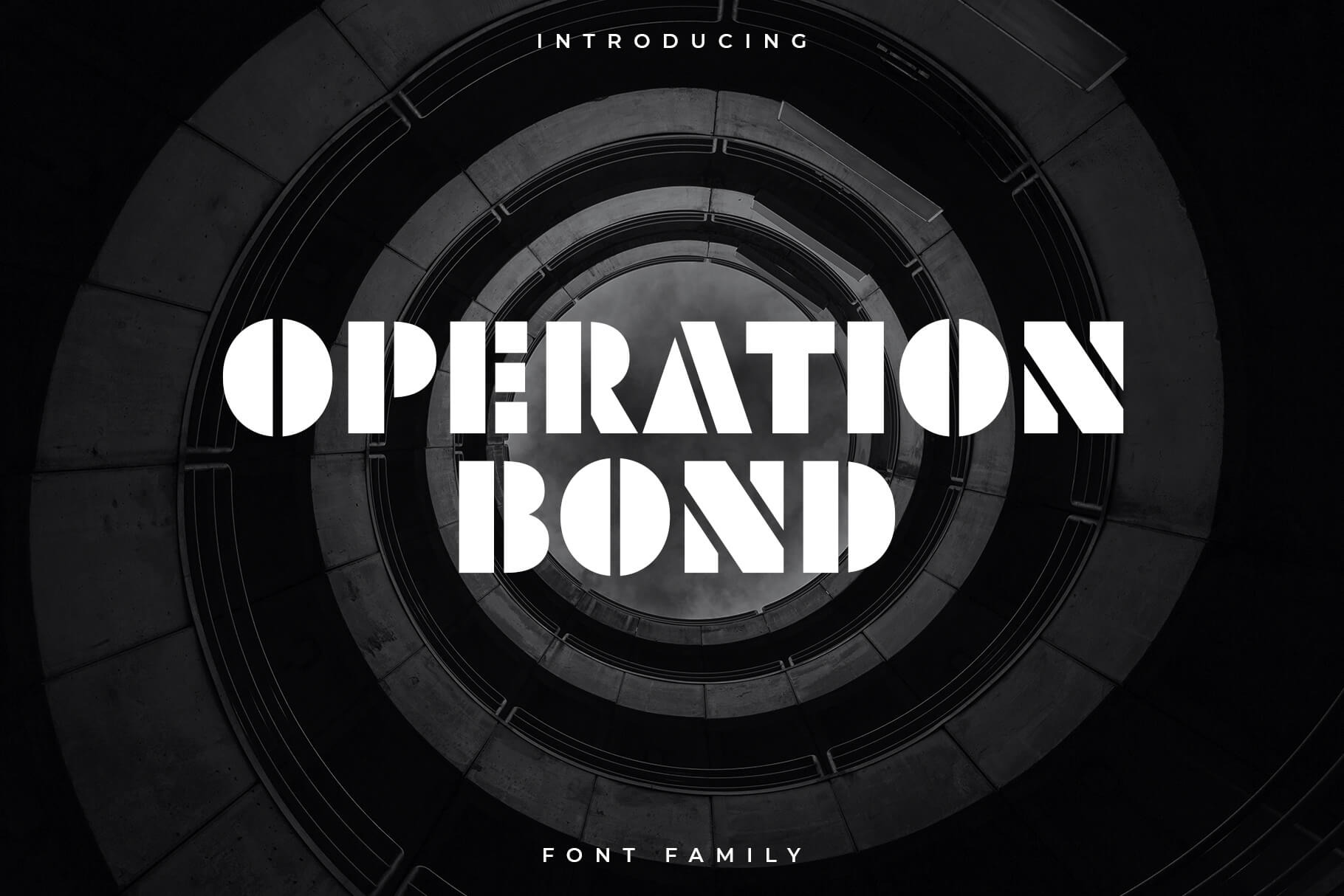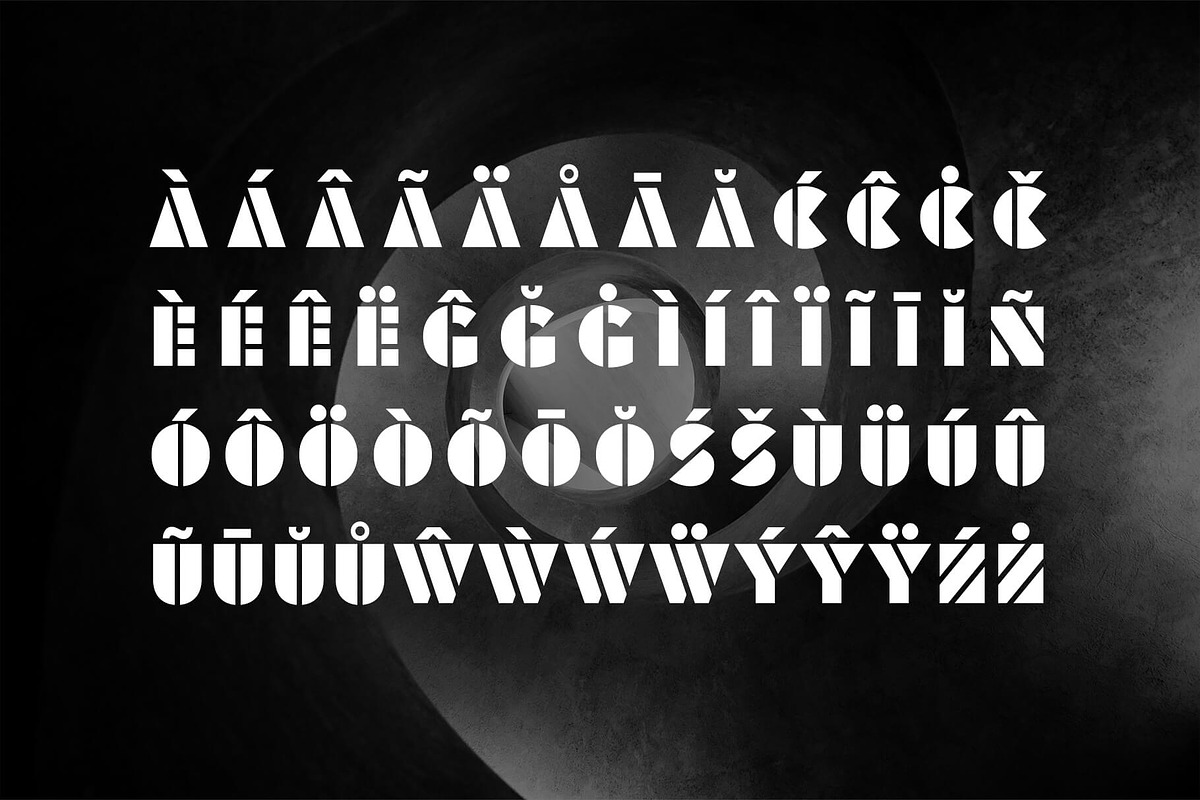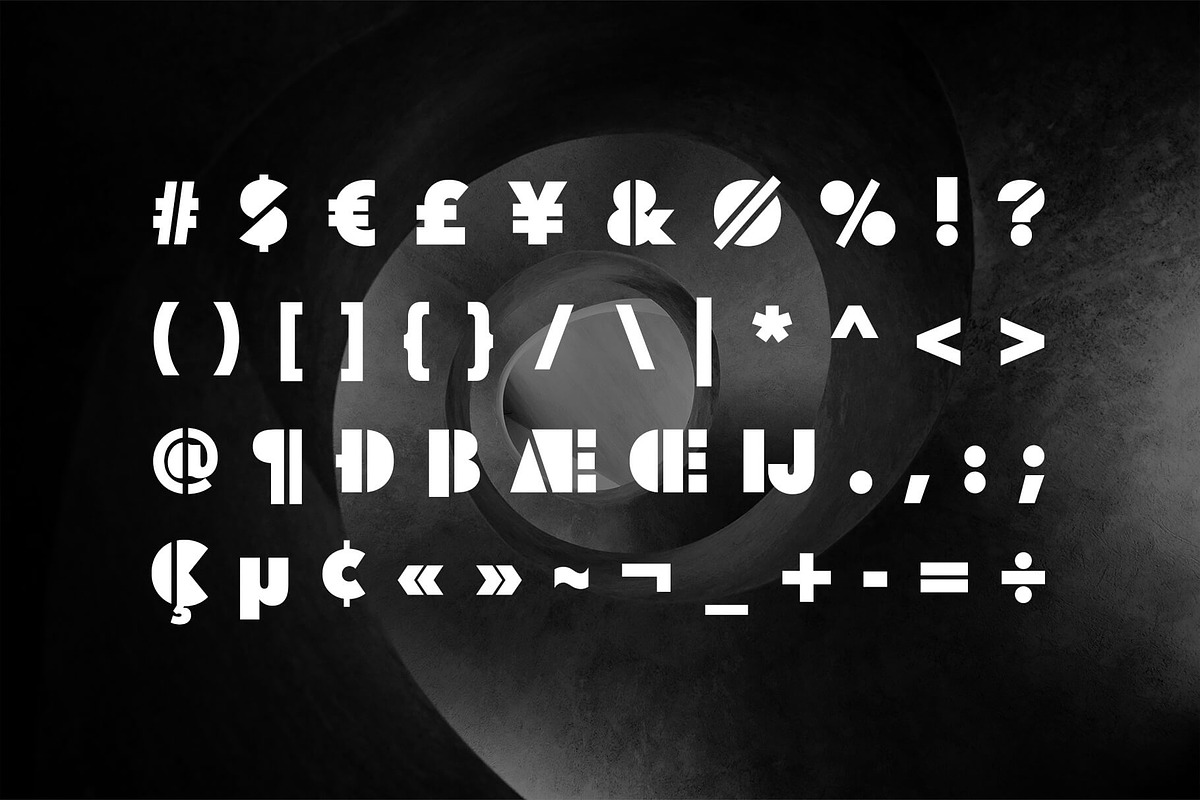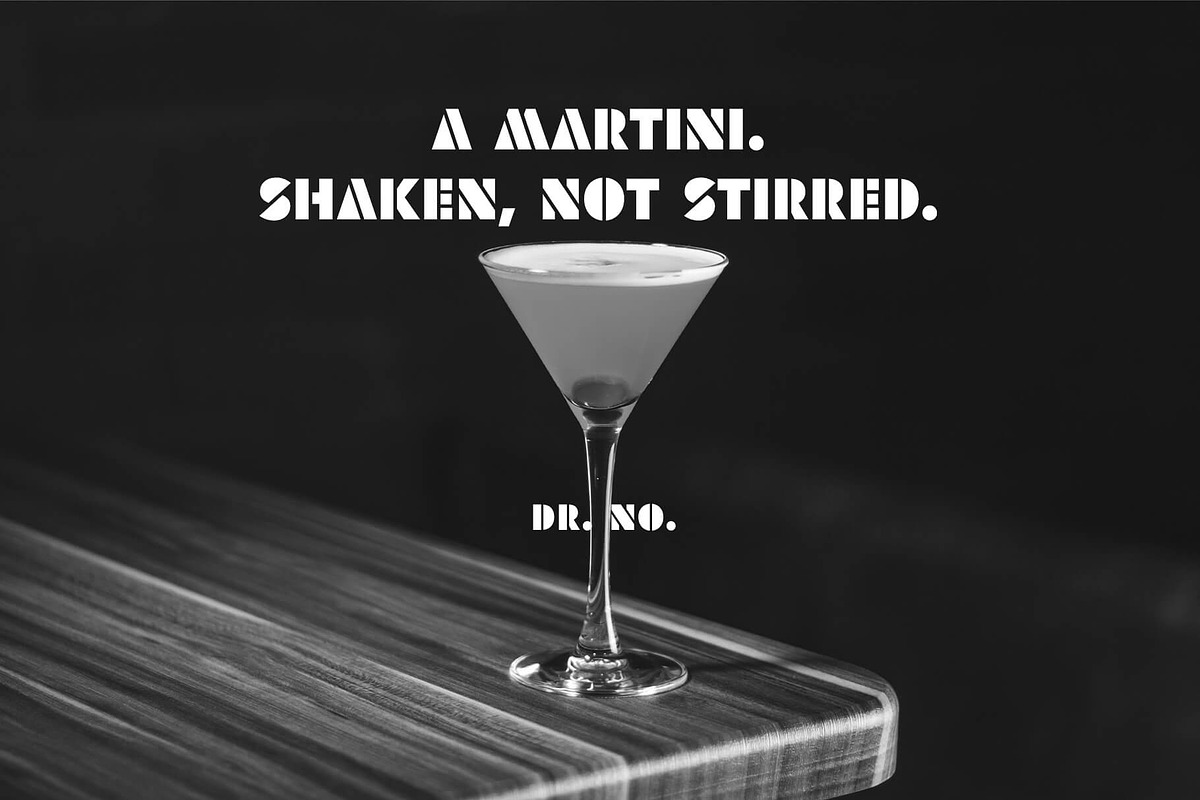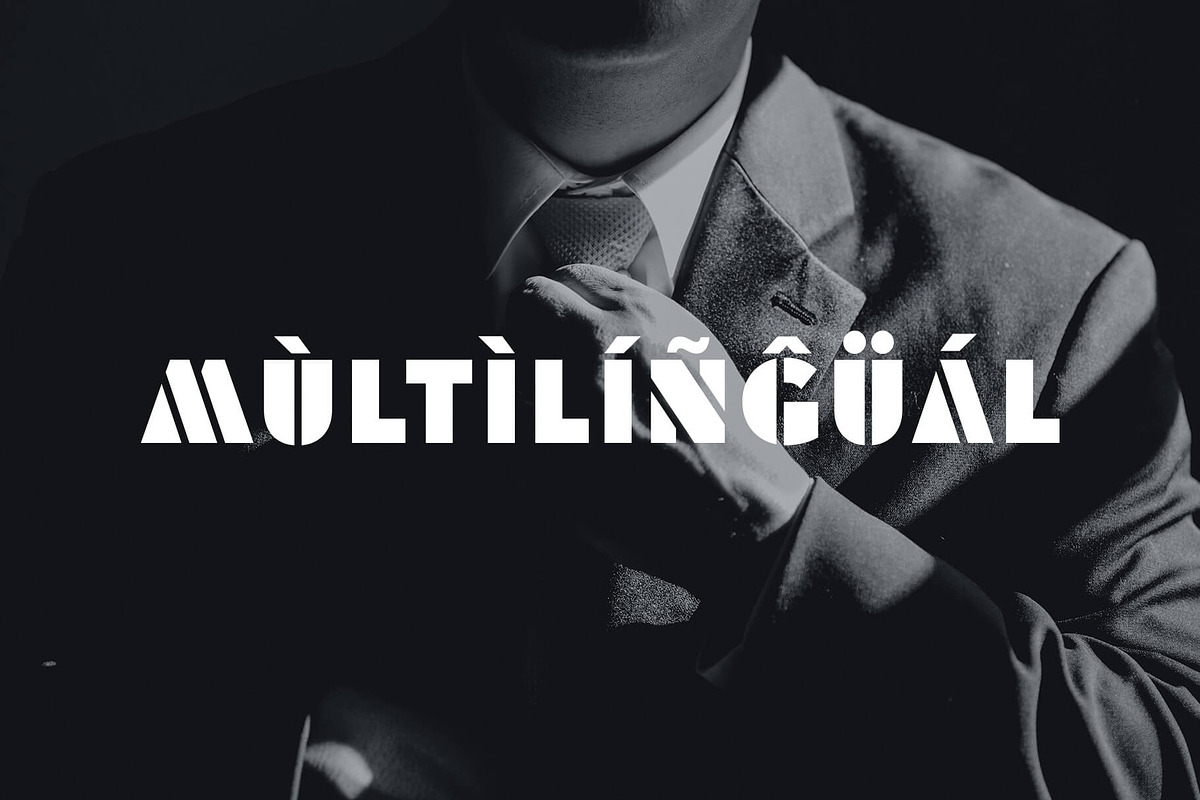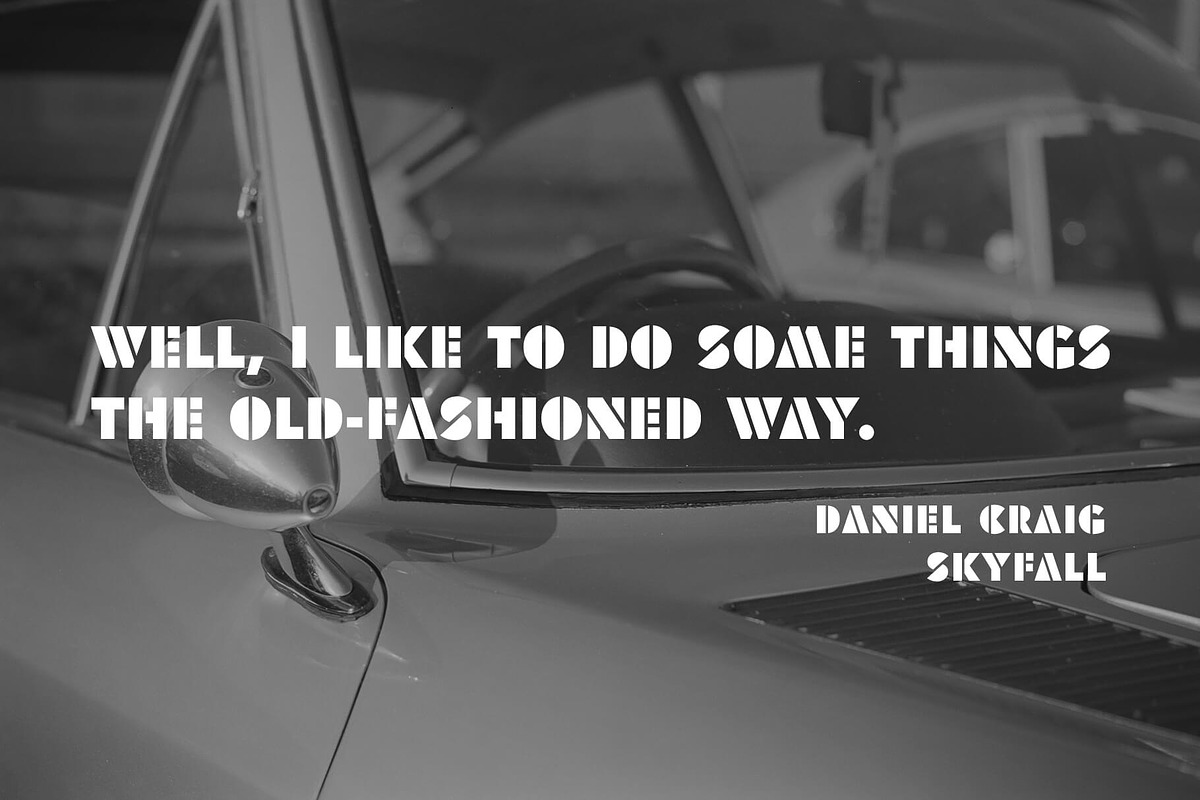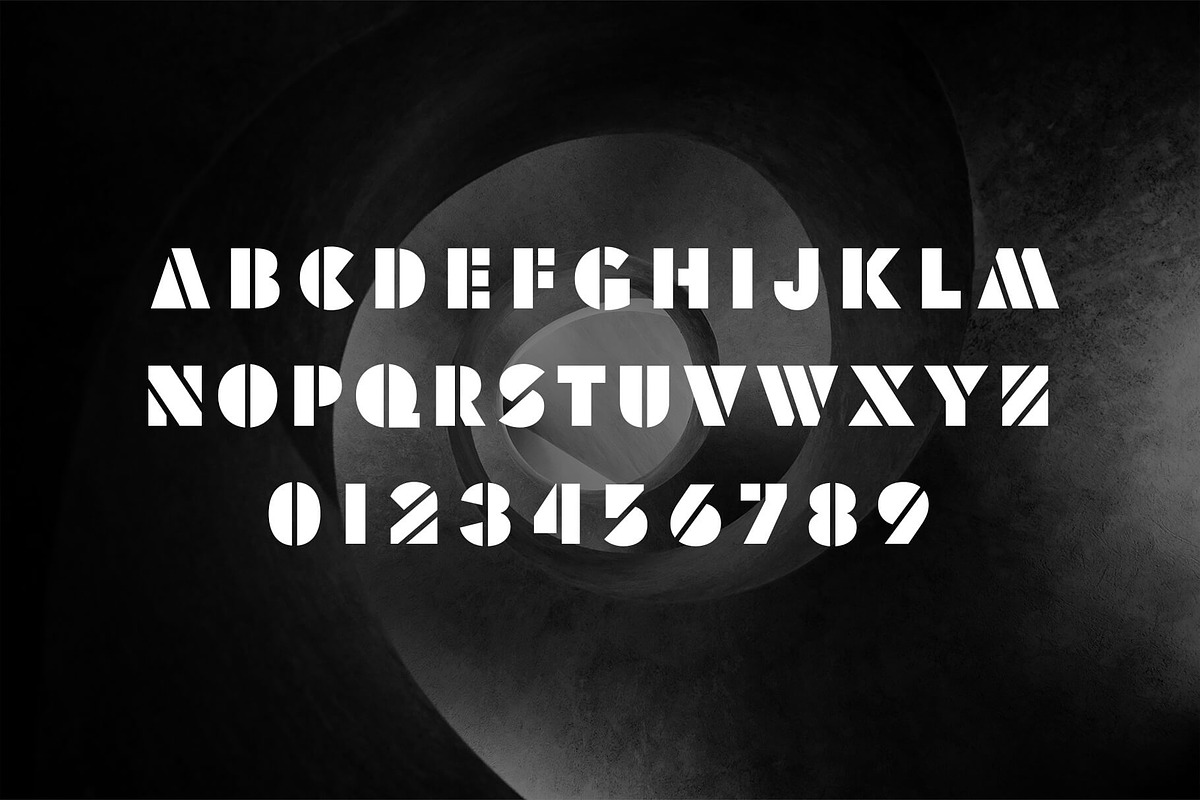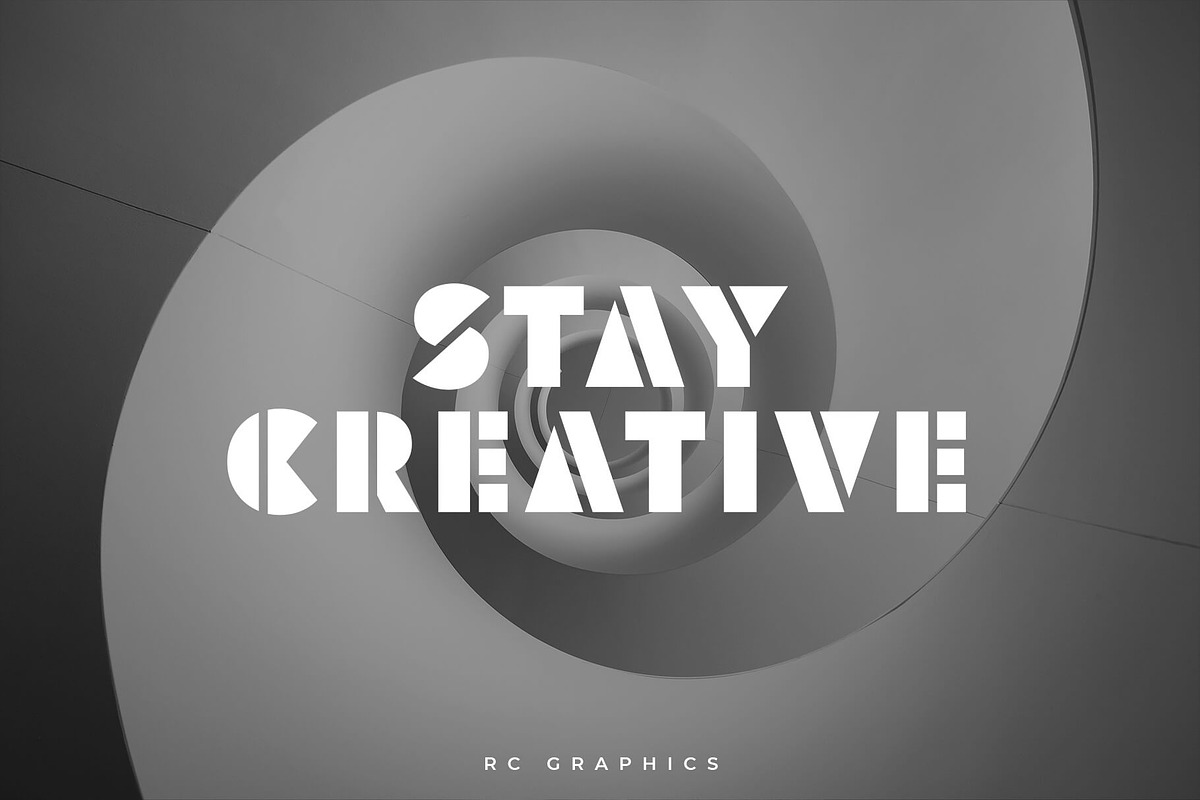
Operation Bond - Bold Display Font
Operation Bond is a bold, cinematic display typeface inspired by espionage, military aesthetics, and action movies. Designed to make an instant impact, this font delivers strong visual presence and a powerful, modern look.
Best used for : Headlines & titles Posters & movie artwork Logos & branding Video games & tech projects Album covers & packaging
Operation Bond is not just a font, it’s a statement.
Uppercase letters
Symbols
Accented characters
Multilingual (Foreign language characters)